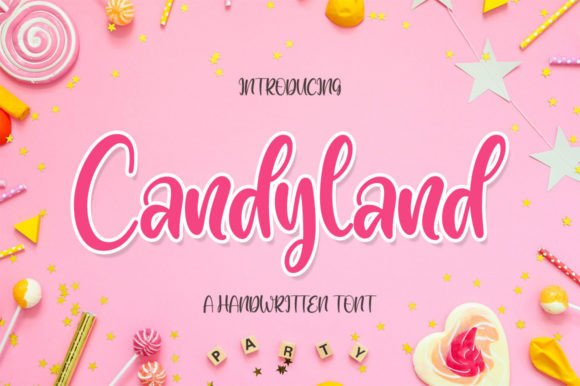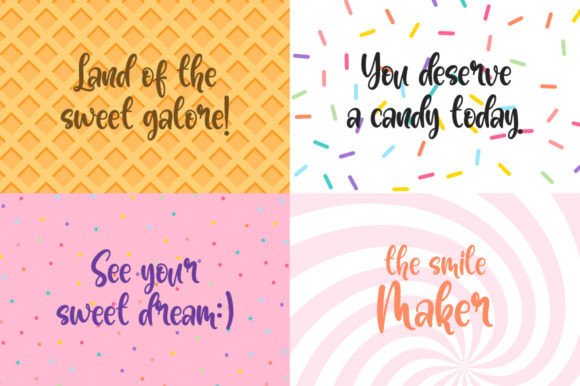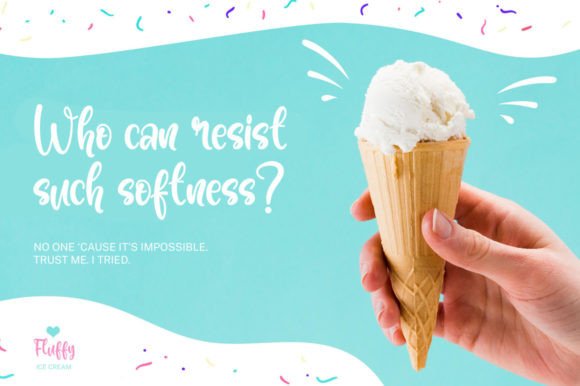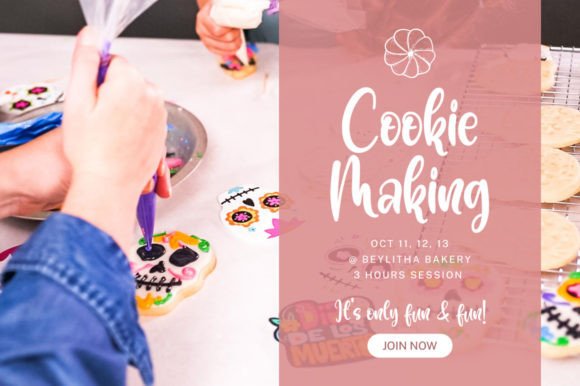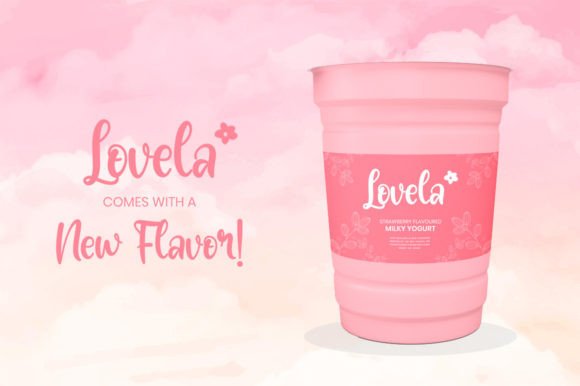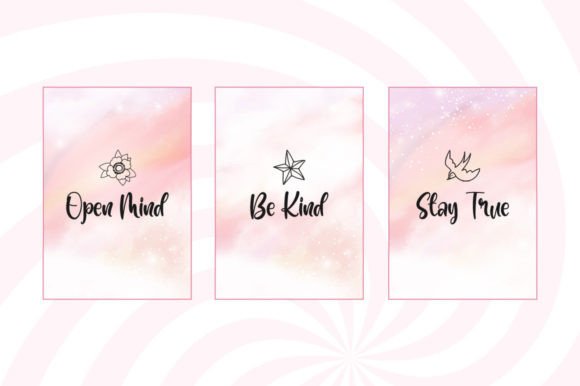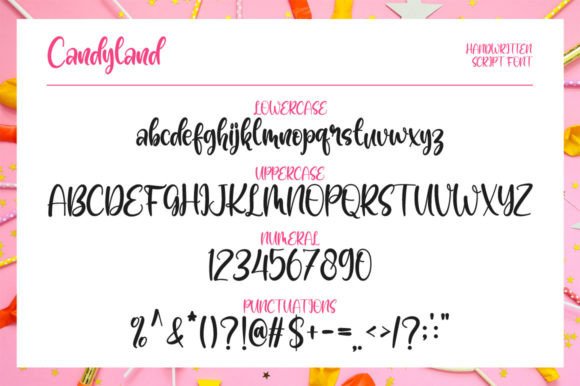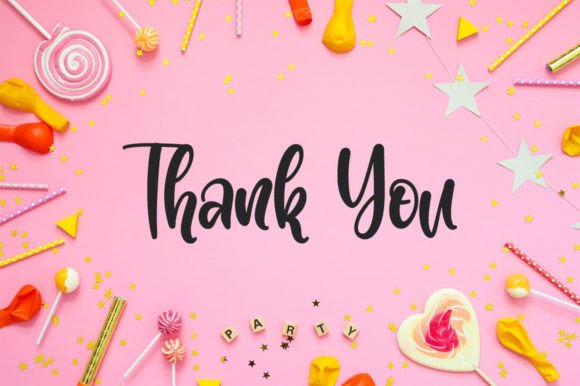
Candyland Font
About Candyland Font
“Candyland” is a fun and smart-looking handwritten font that adds a playful and customized touch to your creative projects. Its whimsical style makes it an excellent choice for various applications, including invitations, thank you cards, quotes, greeting cards, logos, business cards, and any other design that benefits from a personalized and fun aesthetic.
The charm of “Candyland” lies in its whimsical and handwritten script. Its playful and well-designed characters create a visually captivating and lively experience, making it an ideal choice for projects that aim to convey a sense of joy and customization.
One of the standout qualities of “Candyland” is its versatility. Whether you’re using it to design charming invitations, craft heartfelt thank you cards, create memorable quotes, or add a fun touch to your branding and logos, this font seamlessly integrates into your creative vision.
This font’s dedication to providing a customized and fun look to your projects sets it apart. Whether you’re working on personal or professional endeavors, “Candyland” brings a sense of whimsy and creativity to your work that resonates with a diverse audience.
In summary, “Candyland” is more than just a font; it’s a playful and fun creative tool that can make your designs stand out with a personalized touch. Whether you’re a professional designer seeking a font that adds a sense of joy and customization or an enthusiast passionate about crafting and design, “Candyland” is here to infuse your projects with a lively and fun script. Embrace the whimsy of “Candyland,” and watch your creativity flourish with playful and customized designs.